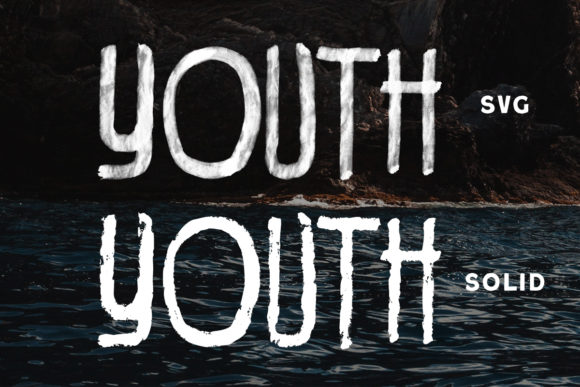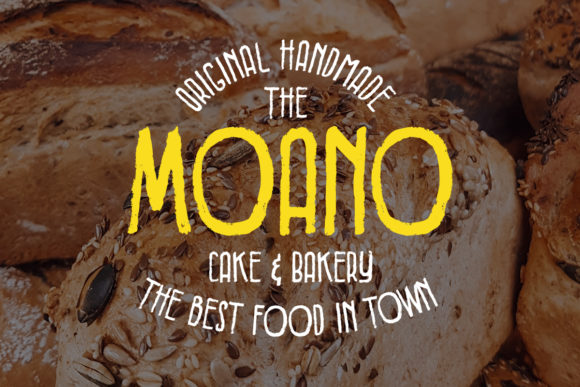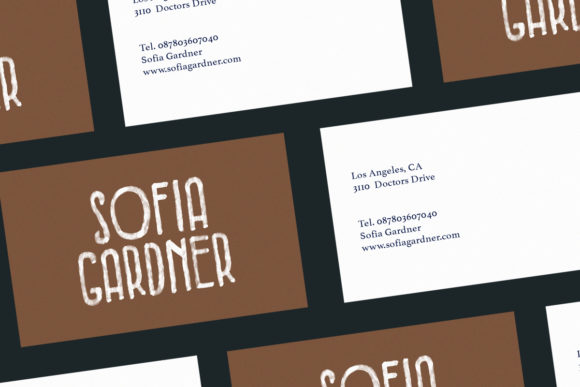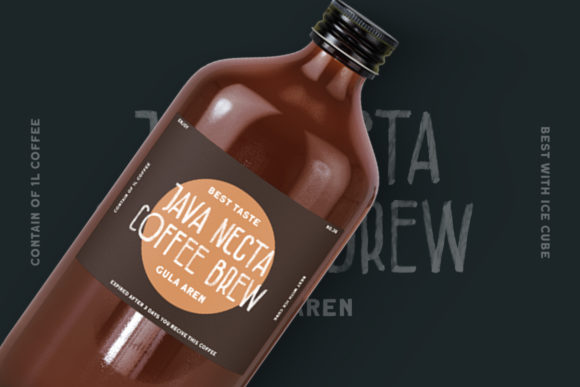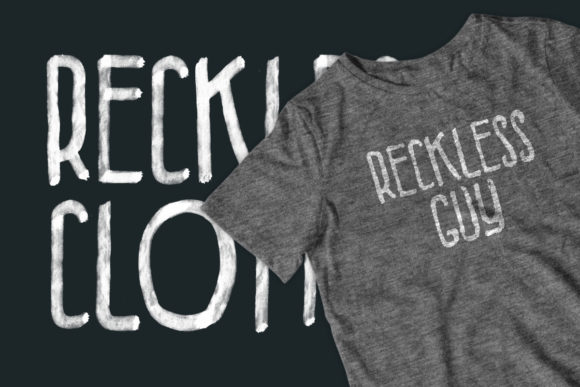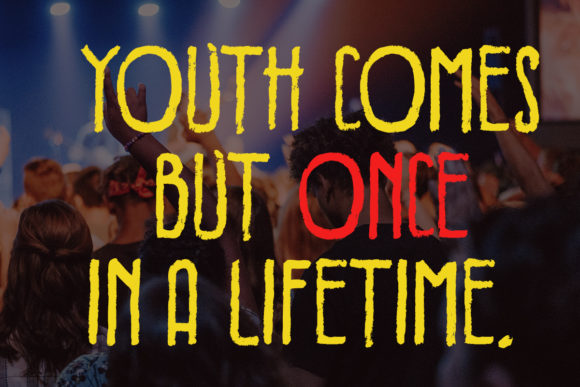
Braleno Font: A Simple yet Stunning Brushed Display Font
Are you tired of using the same old fonts in your designs? Look no further than Braleno Font, a neat brushed display font that is sure to elevate your creative projects. With its simple lettering and versatile style, Braleno is an excellent addition to any designer’s toolkit.
What is Braleno Font?
Braleno Font is a beautifully crafted brushed display font that exudes a sense of simplicity and elegance. Its unique, hand-brushed texture gives it a distinctive look that is both modern and timeless. Whether you’re working on a logo, poster, or social media graphic, Braleno is the perfect choice for designers who want to add a touch of sophistication to their work.
Key Features of Braleno Font
- Simple Lettering: Braleno’s simple lettering makes it incredibly easy to read and understand, even at smaller font sizes.
- Brushed Texture: The font’s brushed texture adds a tactile feel to your designs, giving them a more organic and human touch.
- Versatile Style: Braleno’s clean and minimalist design makes it suitable for a wide range of projects, from logos and posters to social media graphics and more.
- Easily Customizable: Braleno is highly customizable, allowing you to adjust the font size, color, and style to fit your design needs.
Why Choose Braleno Font?
So why should you choose Braleno Font for your next design project? Here are just a few reasons:
- Unique Style: Braleno’s distinctive brushed texture and simple lettering make it stand out from more traditional fonts.
- Easy to Read: Despite its unique texture, Braleno is incredibly easy to read, making it perfect for designs that require a clear and concise message.
- Highly Versatile: Braleno can be used in a wide range of projects, from logos and branding materials to posters, social media graphics, and more.
- Time-Saving: With Braleno, you can create stunning designs in a fraction of the time it would take with more complex fonts.
How to Use Braleno Font in Your Designs
Using Braleno Font in your designs is incredibly easy. Here are a few tips to get you started:
- Pair it with Other Fonts: Braleno pairs perfectly with other fonts, such as sans-serif fonts like Arial or Helvetica.
- Experiment with Colors: Braleno looks great in a variety of colors, from bold and bright to soft and pastel.
- Use it for Headings: Braleno is perfect for headings and titles, where its unique texture and simple lettering can really shine.
- Add a Personal Touch: Use Braleno to add a personal touch to your designs, such as in a handwritten note or signature.
In conclusion, Braleno Font is a simple yet stunning brushed display font that is sure to elevate your designs. With its unique texture, simple lettering, and versatile style, Braleno is the perfect choice for designers who want to add a touch of sophistication to their work. Whether you’re working on a logo, poster, or social media graphic, Braleno is an excellent addition to any designer’s toolkit.